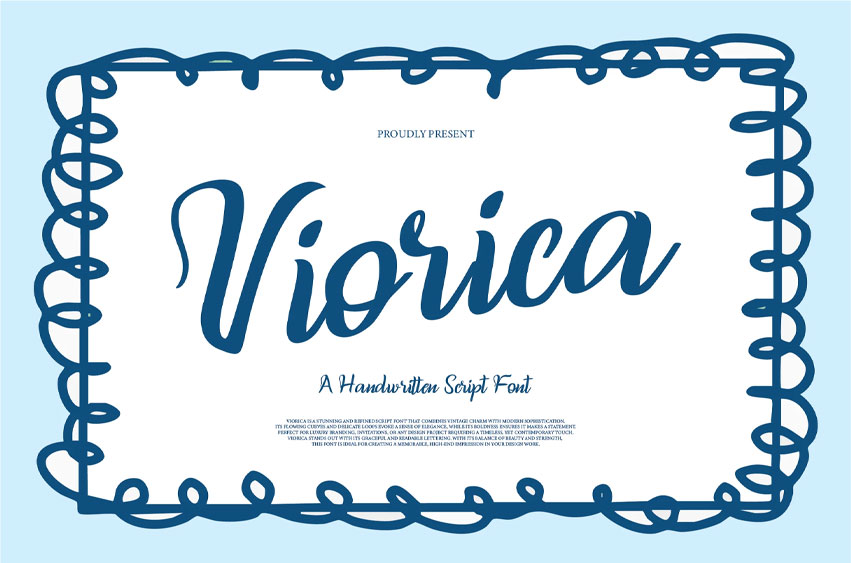
Viorica Font is a stunning and refined script font that combines vintage charm with modern sophistication. Its flowing curves and delicate loops evoke a sense of elegance, while its boldness ensures it makes a statement.
Perfect for luxury branding, invitations, or any design project requiring a timeless, yet contemporary touch, Viorica stands out with its graceful and readable lettering. With its balance of beauty and strength, this font is ideal for creating a memorable, high-end impression in your design work.